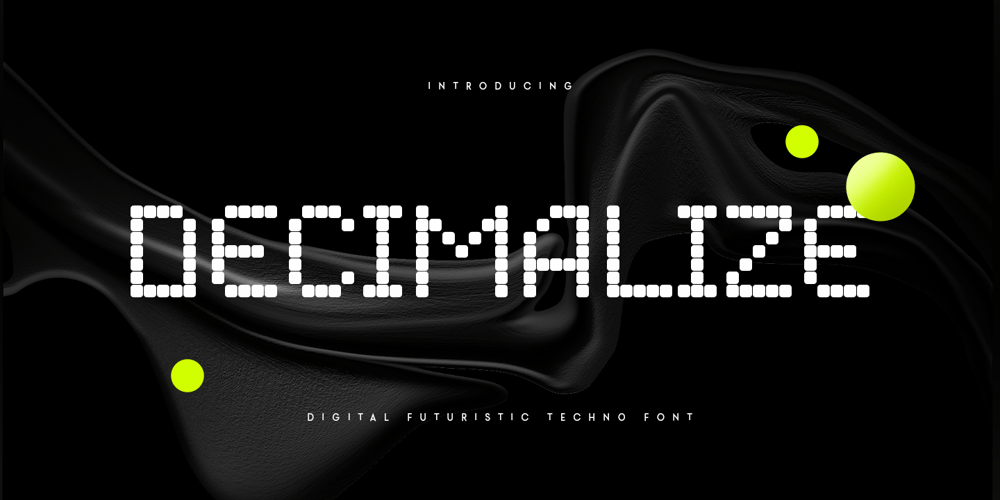
Decimalize Font Family was designed by Zamroni Hamzah and published by Sensatype Studio. Decimalize contains 1 styles and family package options. A Digital Futuristic Pixel Techno font are prepared special for classic, pixel style, game, poster design needs that will add your value. It’s so perfect to add your style and headline overview. And specially for Decimalize font, we crafted for classic style, NFT and unique feels so enjoy to create any project that will show your main idea out.Decimalize Digital Futuristic Pixel Techno font ready with: Perfect to get creative with this font 4 files format already Preview as a inspirations that you can do with Decimalize font Ready with Uppercase and Lowercase characters Wish you enjoy our font. ๐